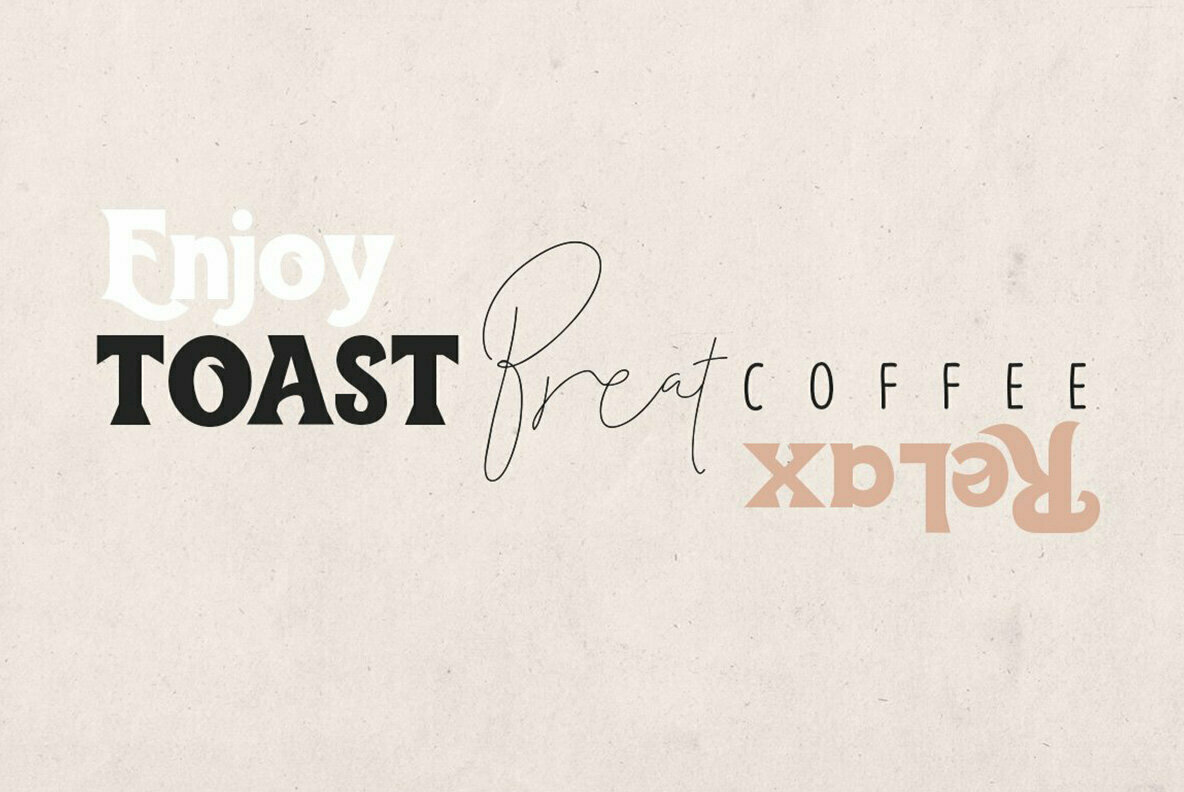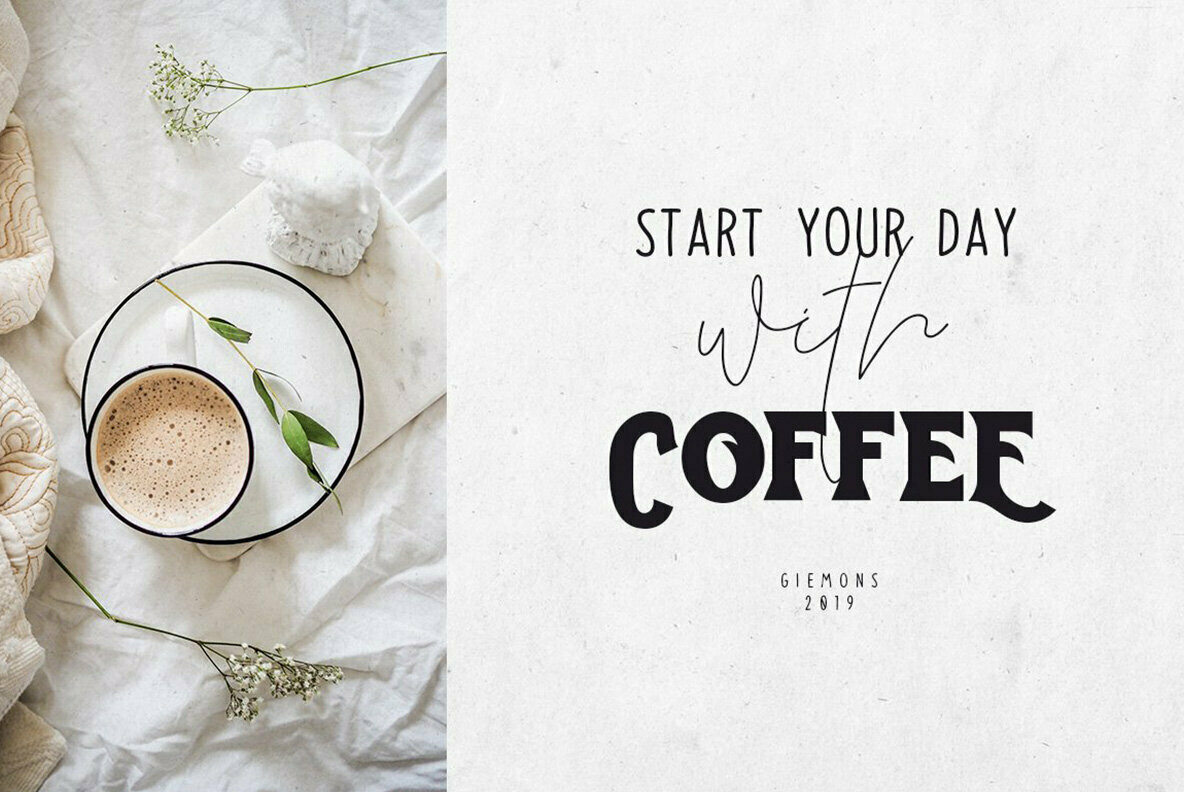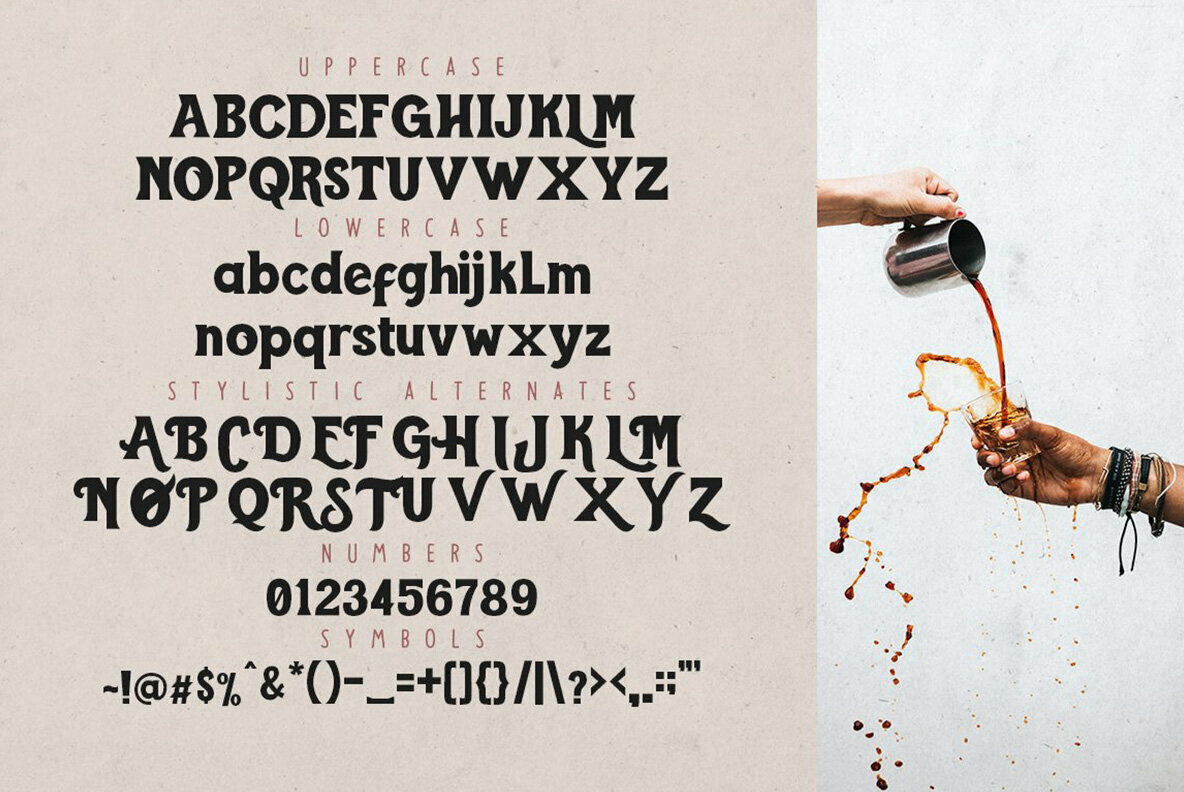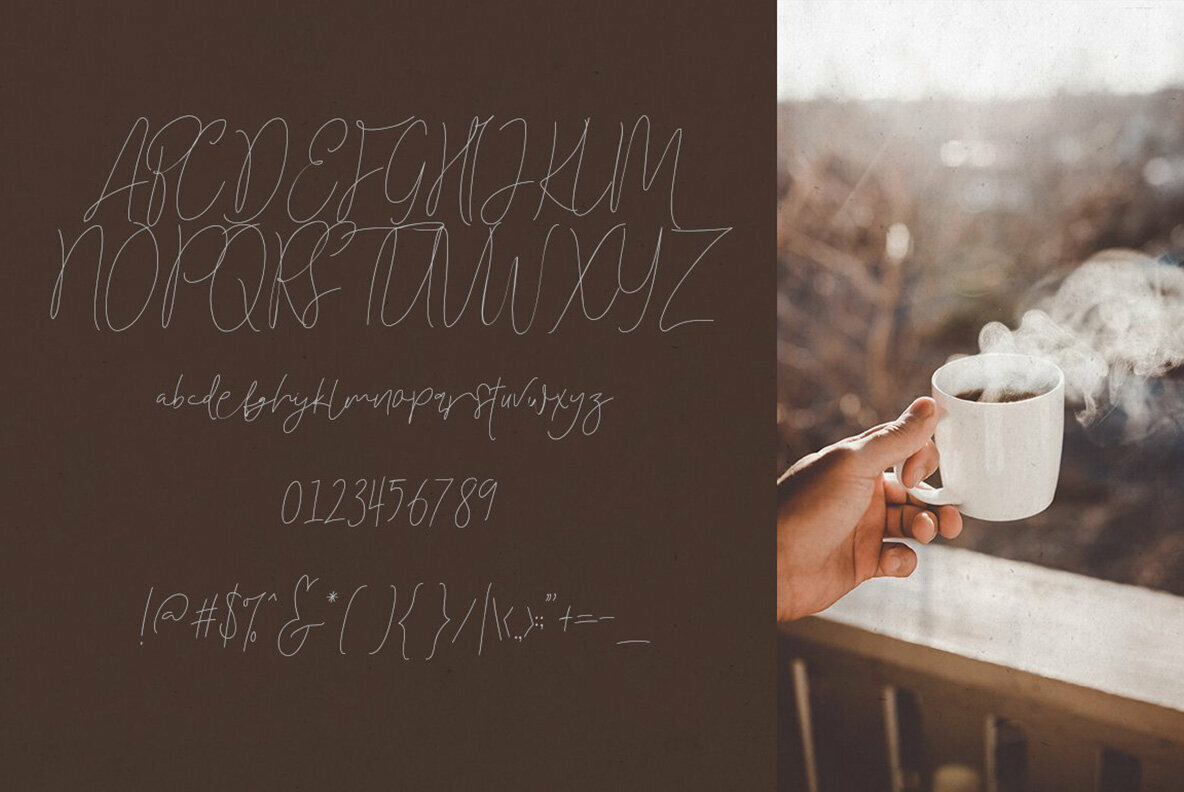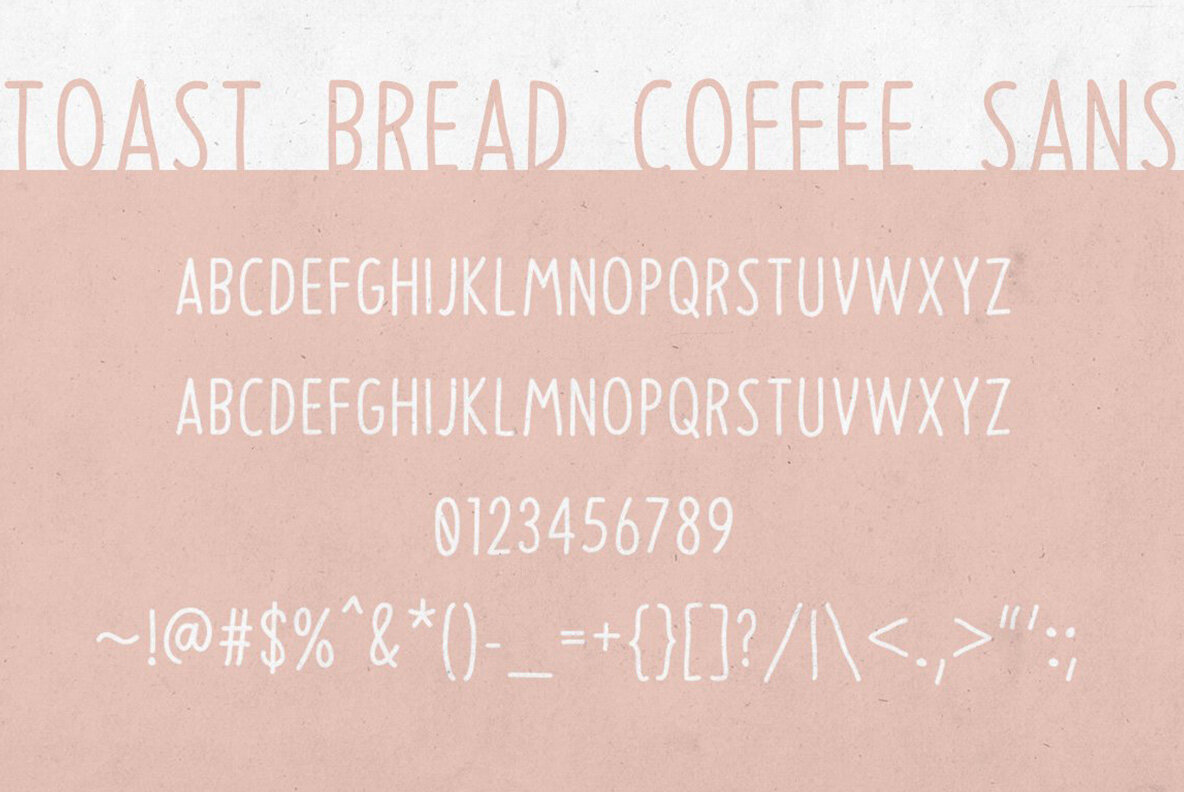
Toast Bread Coffee Font
Toast Bread Coffee Typeface Sans
Toast Bread Coffee Typeface Script
Toast Bread Coffee Typeface Serif
Toast Bread Coffee is an exceptional typeface choice for creative professionals seeking diversity in font styles. With its unique blend of Sans, Serif, and Script, this font offers remarkable versatility that suits a wide array of design applications. From crafting compelling logos to designing eye-catching posters, Toast Bread Coffee facilitates effective communication through its varied styles.Toast Bread Coffee: A Multifaceted Typeface
Toast Bread Coffee stands as an ideal choice for graphic designers and creative directors eager to add a dynamic touch to their projects, bridging the gap between modern design needs and classic typographic elegance.